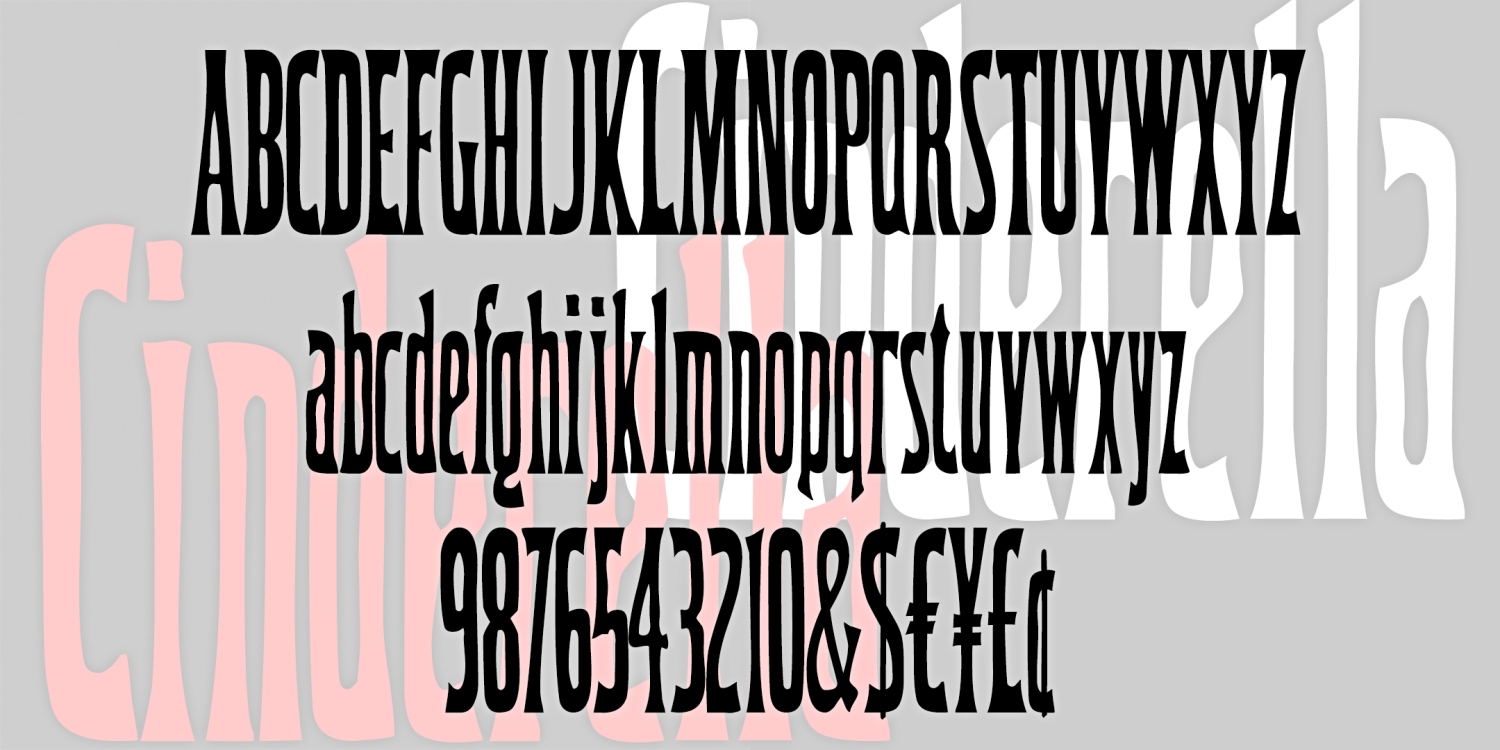
Cinderella
CINDERELLA was inspired by a woodtype font in one of the great Dan X. Solo 100 font books. The lowercase g first caught my eye; it's ultra-condensed which can be very handy.
The Cinderella font family includes 212 glyphs.